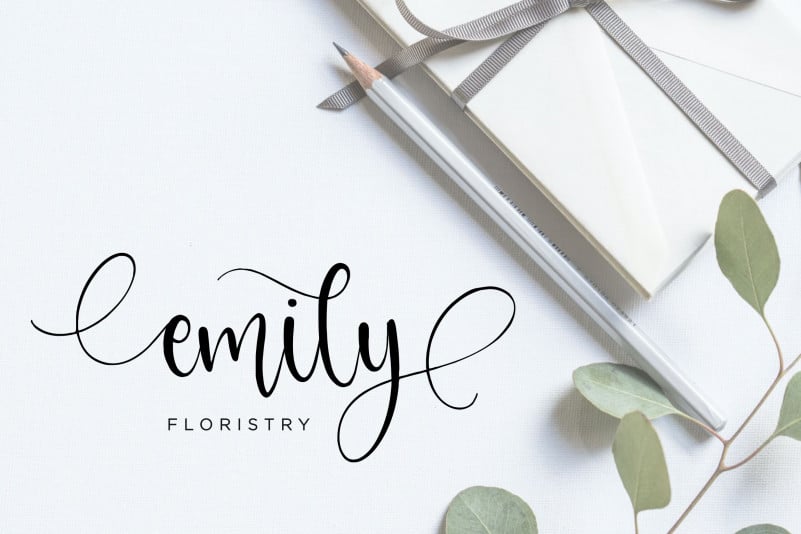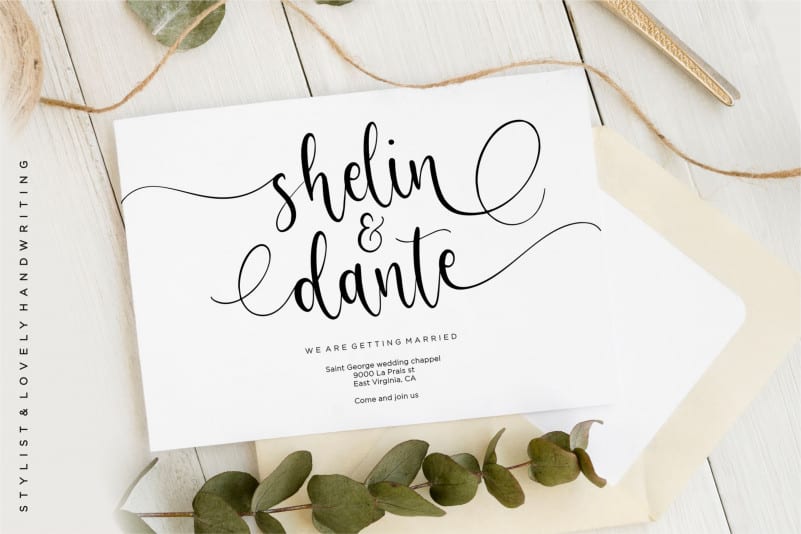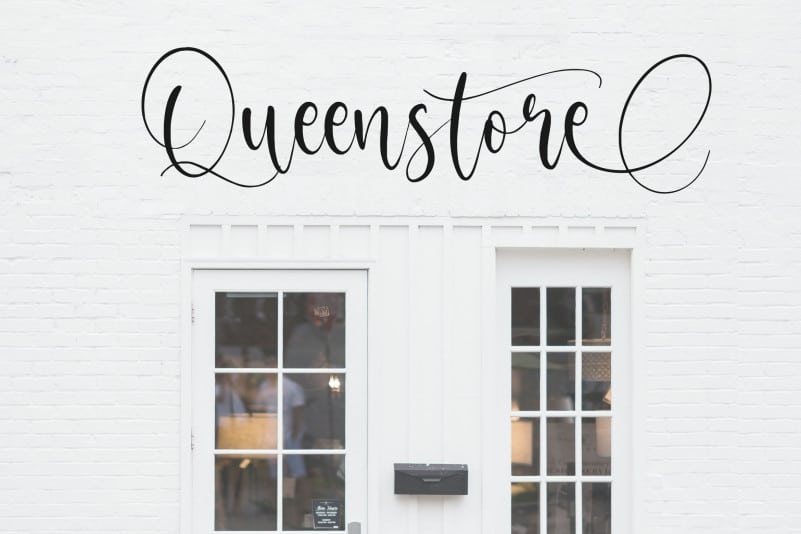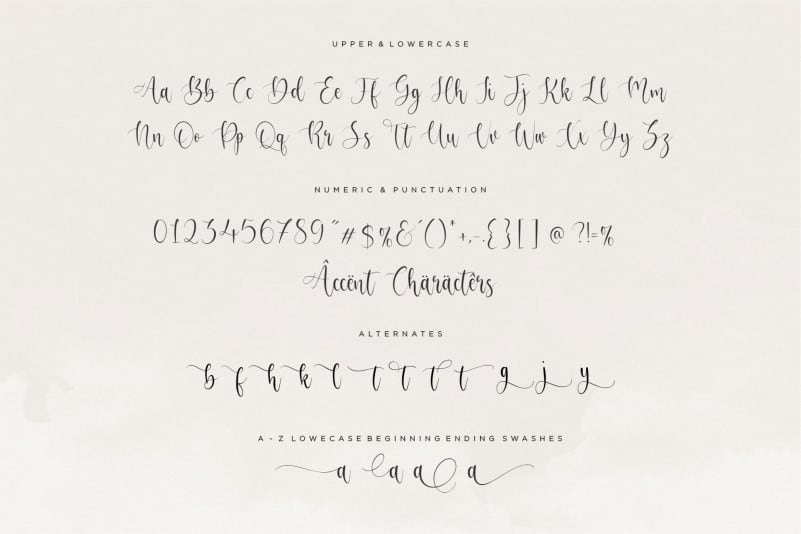
Adrielle Handwritting Font
Proudly Present, Adrielle Handwritting Font.
Adrielle is a Stylist & Lovely Handwritting Font.
Adrielle is perfect for product packaging, branding project, megazine, social media, wedding, or just used to express words above the background.
Uppercase & Lowercase font Stylistic Alternates Ligatures Symbols & Punctuation OpenType Features.